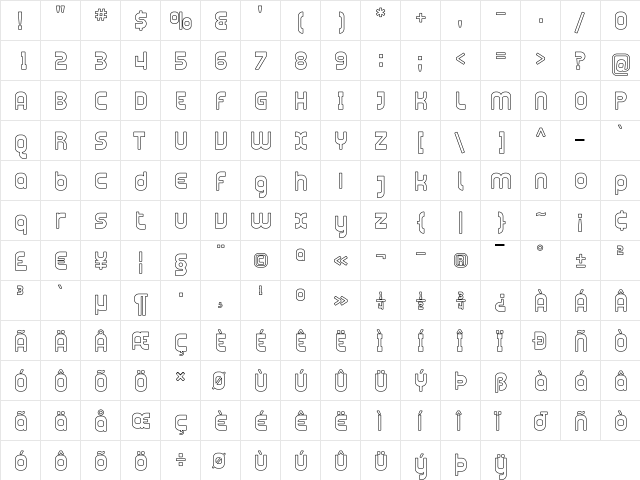
Plasmatica Outline Regular
Design Context for Plasmatica Outline Typeface
Plasmatica Outline is built around its visual character rather than neutral utility — its distinctive forms are designed to make an impression at display sizes.
Font Pairing: Pair with a clean neutral sans-serif for body copy to let Plasmatica Outline's character lead without overwhelming the composition.
Pro Tip: Use Plasmatica Outline exclusively at display sizes — it was designed to be seen, not read at length. Let a neutral companion handle body copy.